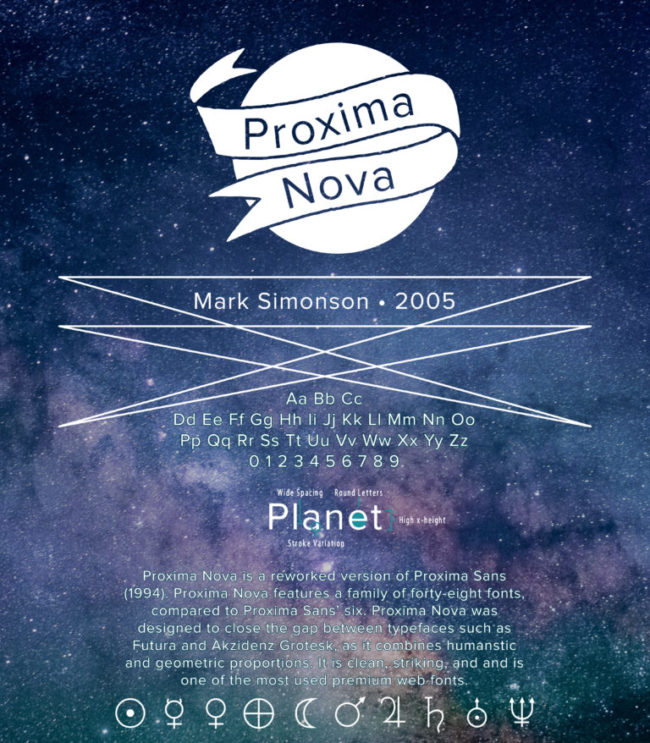
Font of the Week – Proxima Nova
Does this font look familiar? With its modern proportions & geometric appearance, Proxima Nova is a typeface that can’t be missed. Mark Simonson’s design is used on thousands of websites throughout the world. It is even featured by companies such as BuzzFeed, Mashable, and NBC.